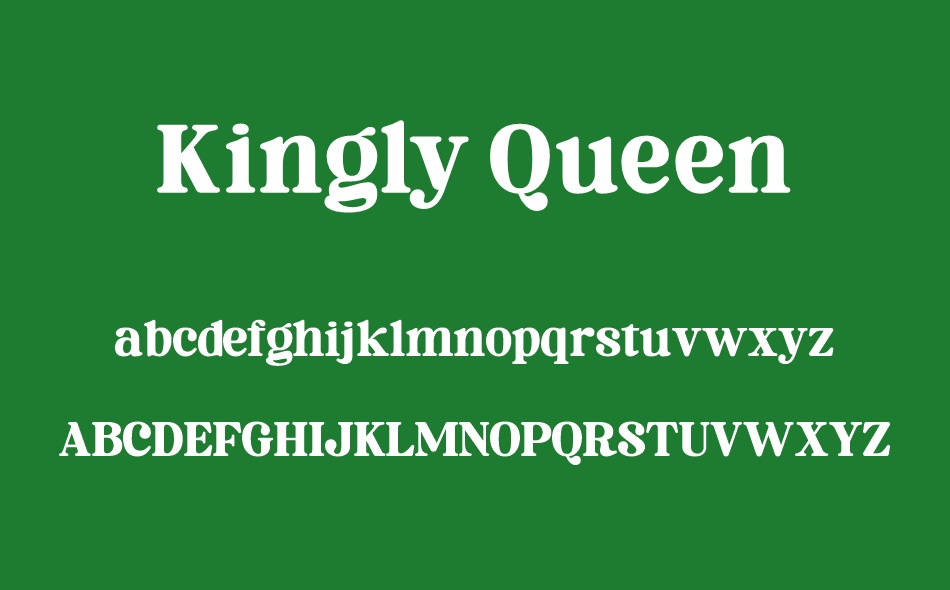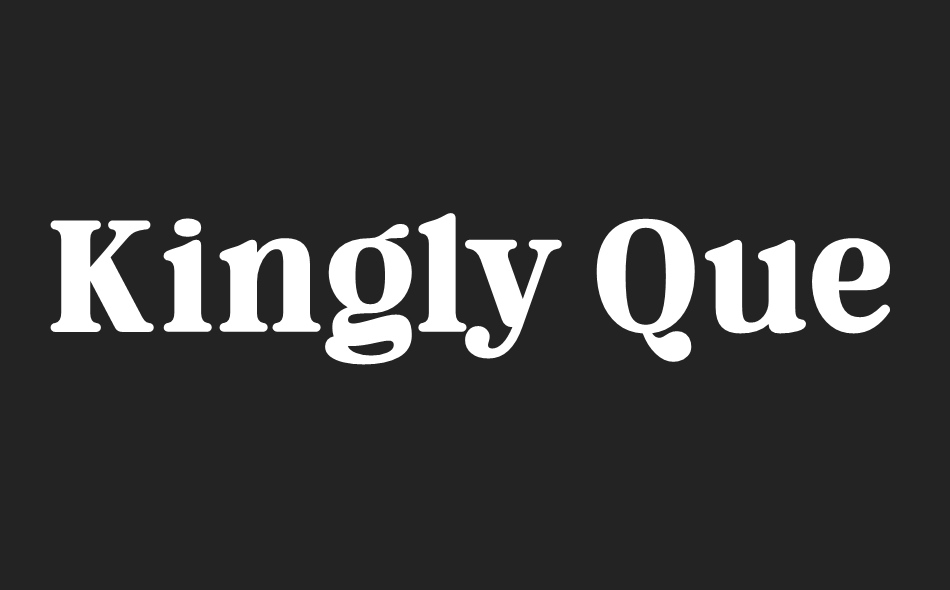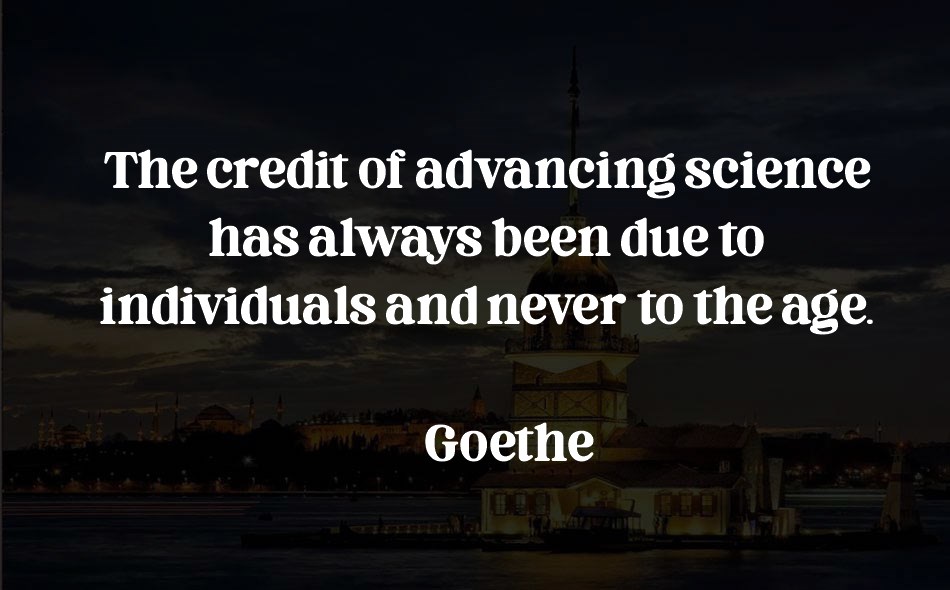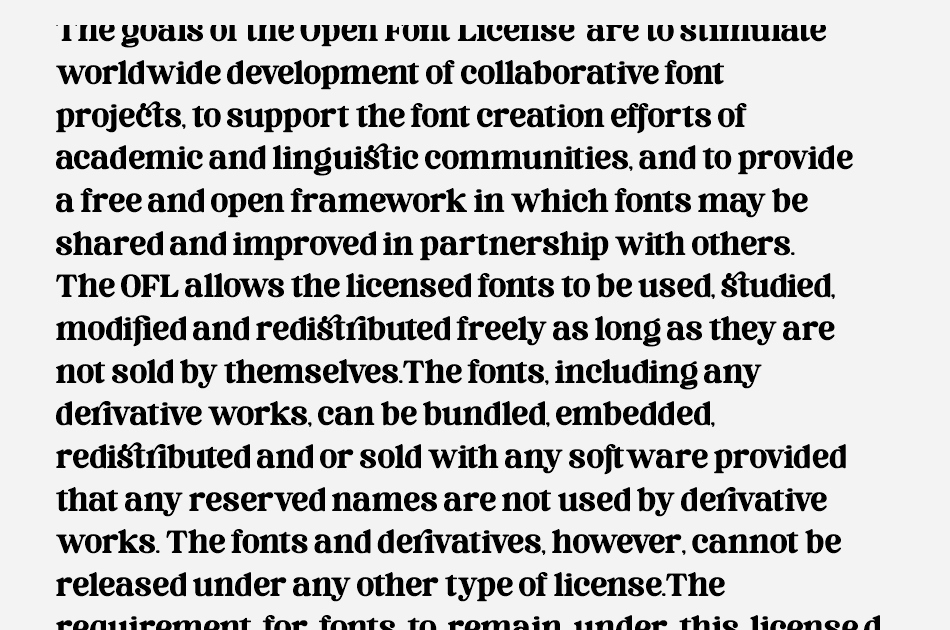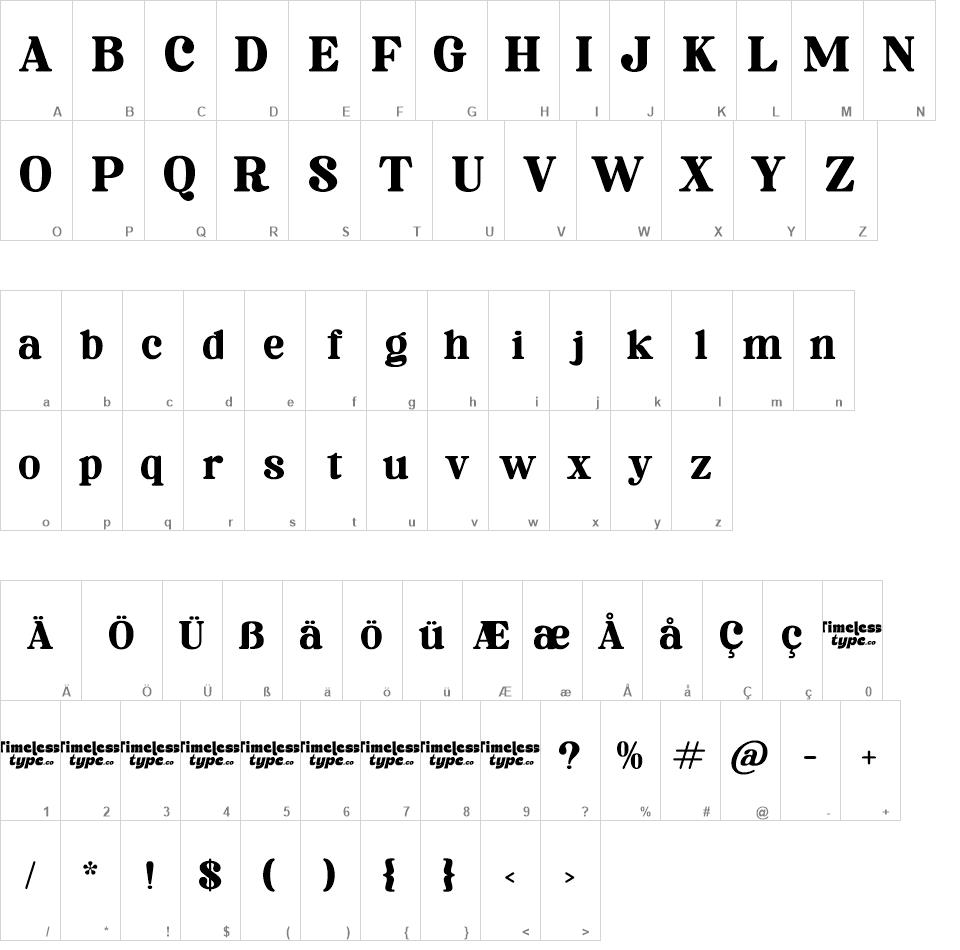
Kingly Queen font
Kingly Queen - Classic Decorative Serif
Inject immediate charisma and vintage charm into your designs with Kingly Queen - Classic Decorative Serif. This typeface is a sophisticated fusion of traditional serif architecture and playful, high-contrast curves, delivering an unforgettable, high-impact presence. Its robust baseline and decorative terminals evoke the opulence of the late 60s and 70s, perfectly balancing retro nostalgia with modern typographic demands.
Unlock unparalleled creative flexibility through the comprehensive feature set of Kingly Queen - Classic Decorative Serif. Offering 16 custom ligatures and 60 stylistic alternates across its 406 glyphs, this font transforms mere text into bespoke artwork. These carefully crafted OpenType features allow designers to generate truly unique wordmarks and titles, ensuring your brand identity is both memorable and distinct.
Establish your brand authority with effortless grandeur. Kingly Queen - Classic Decorative Serif is perfectly suited for luxury branding, exclusive editorial headings, high-end product packaging, and stylish magazine layouts where a bold statement is non-negotiable. This typeface excels in display settings, guaranteeing readability while maintaining a highly decorative and polished aestheticit is the ultimate choice for projects demanding both sophistication and flair.
Expand your reach without sacrificing visual quality or personality. With its extensive multilingual support, Kingly Queen - Classic Decorative Serif adapts seamlessly across global markets, making it incredibly versatile for international projects. Invest in this powerful decorative serif today to elevate your visual identity and deliver titles that resonate with timeless elegance and unmistakable design quality.